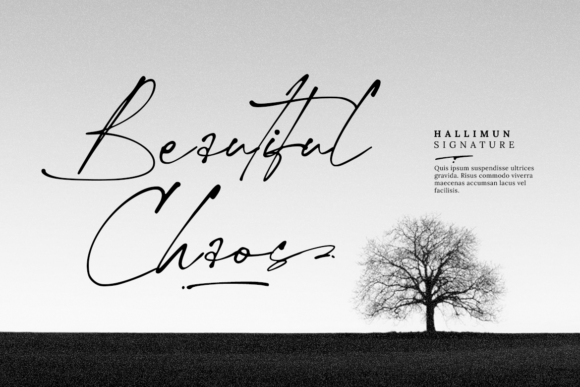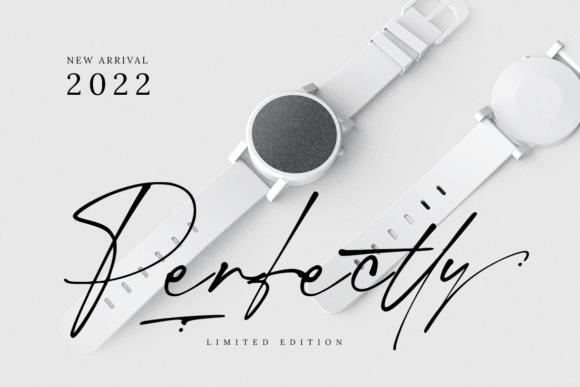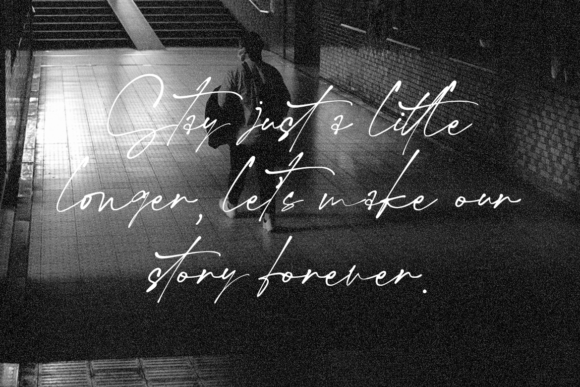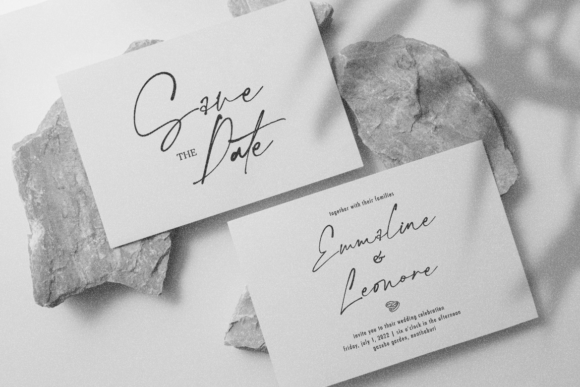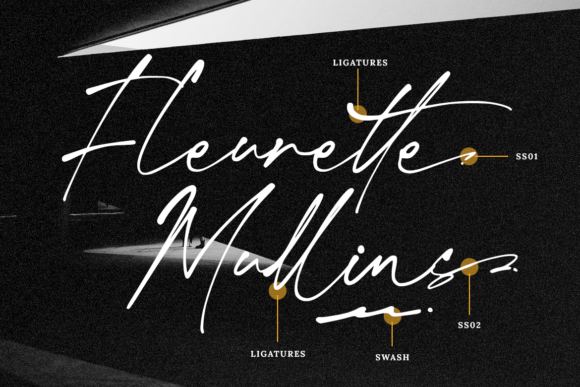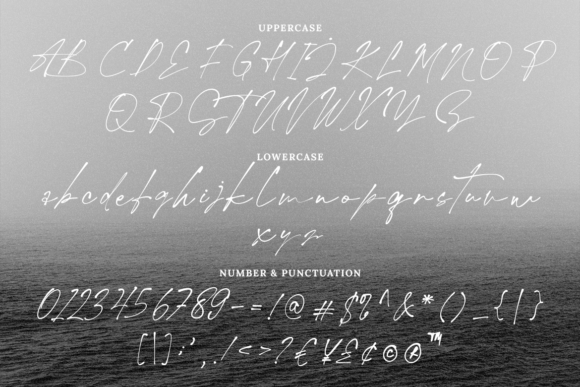
Introducing Hallimun Signature Font: Elevate Your Designs with a Touch of Elegance
Are you looking for a font that can add a touch of sophistication and vintage charm to your design projects? Look no further than Hallimun Signature Font. This stylish typeface is designed to give your designs a natural, handwritten look that’s perfect for a wide range of applications.
The Characteristics of Hallimun Signature Font
Hallimun Signature Font is a beautifully crafted typeface that boasts a unique, hand-written style. Its elegant and flowing lines give it a sophisticated and refined look that’s perfect for designers and crafters who want to add a touch of class to their projects. The font’s natural, handwritten look makes it ideal for designs that require a personal touch.
Uses for Hallimun Signature Font
Hallimun Signature Font is an incredibly versatile typeface that can be used for a wide range of design projects. Some of the most popular uses for this font include:
- Branding projects: Create a lasting impression with your brand’s logo or marketing materials using Hallimun Signature Font.
- Logos: Add a touch of elegance and sophistication to your logo design with this beautiful font.
- Wedding designs: Make your wedding invitations, stationery, and other designs truly special with Hallimun Signature Font.
- Social media posts: Stand out on social media with eye-catching graphics and typography.
- Advertisements: Create effective and stylish ads that grab attention.
- Product packaging: Add a personal touch to your product packaging with Hallimun Signature Font.
- Product designs: Create stunning product designs that showcase your brand’s personality.
- Labels: Design beautiful labels for your products or gifts.
- Photography: Add a touch of elegance to your photography with custom watermarks or overlays.
- Invitations: Create stunning invitations for any occasion.
- Stationery: Design beautiful stationery that reflects your brand’s personality.
What Makes Hallimun Signature Font Special?
Hallimun Signature Font is more than just a beautiful typeface – it’s also incredibly easy to use. The font is PUA encoded, which means you can access all of the glyphs and swashes with ease. This makes it simple to customize your designs and add a unique touch.
Why Choose Hallimun Signature Font?
There are many reasons why designers and crafters choose Hallimun Signature Font for their projects. Some of the top benefits include:
- Unique and stylish design: Hallimun Signature Font is a one-of-a-kind typeface that’s sure to make your designs stand out.
- Ease of use: The font’s PUA encoding makes it easy to access all of the glyphs and swashes.
- Versatility: Hallimun Signature Font can be used for a wide range of design projects.
- Sophisticated and elegant look: The font’s natural, handwritten look adds a touch of class to any design.
Hallimun Signature Font is a beautiful and versatile typeface that’s perfect for designers and crafters who want to add a touch of elegance and sophistication to their projects. With its natural, handwritten look and PUA encoding, this font is easy to use and customizable. Whether you’re working on a branding project, logo design, or wedding invitation, Hallimun Signature Font is the perfect choice.